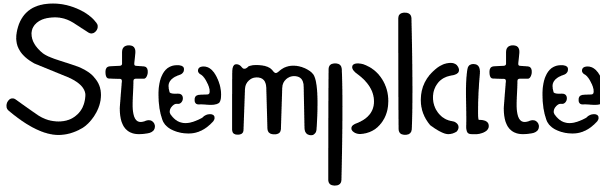
Stemplate
Stemplate is a bold, no-nonsense font based on the common translucent green templates that are available now at an office supply near you! Stemplate includes upper and lower case letters, as well as numbers, symbols, punctuation, and accented...
Stemplate
Stemplate Outline
Stemplate Fat